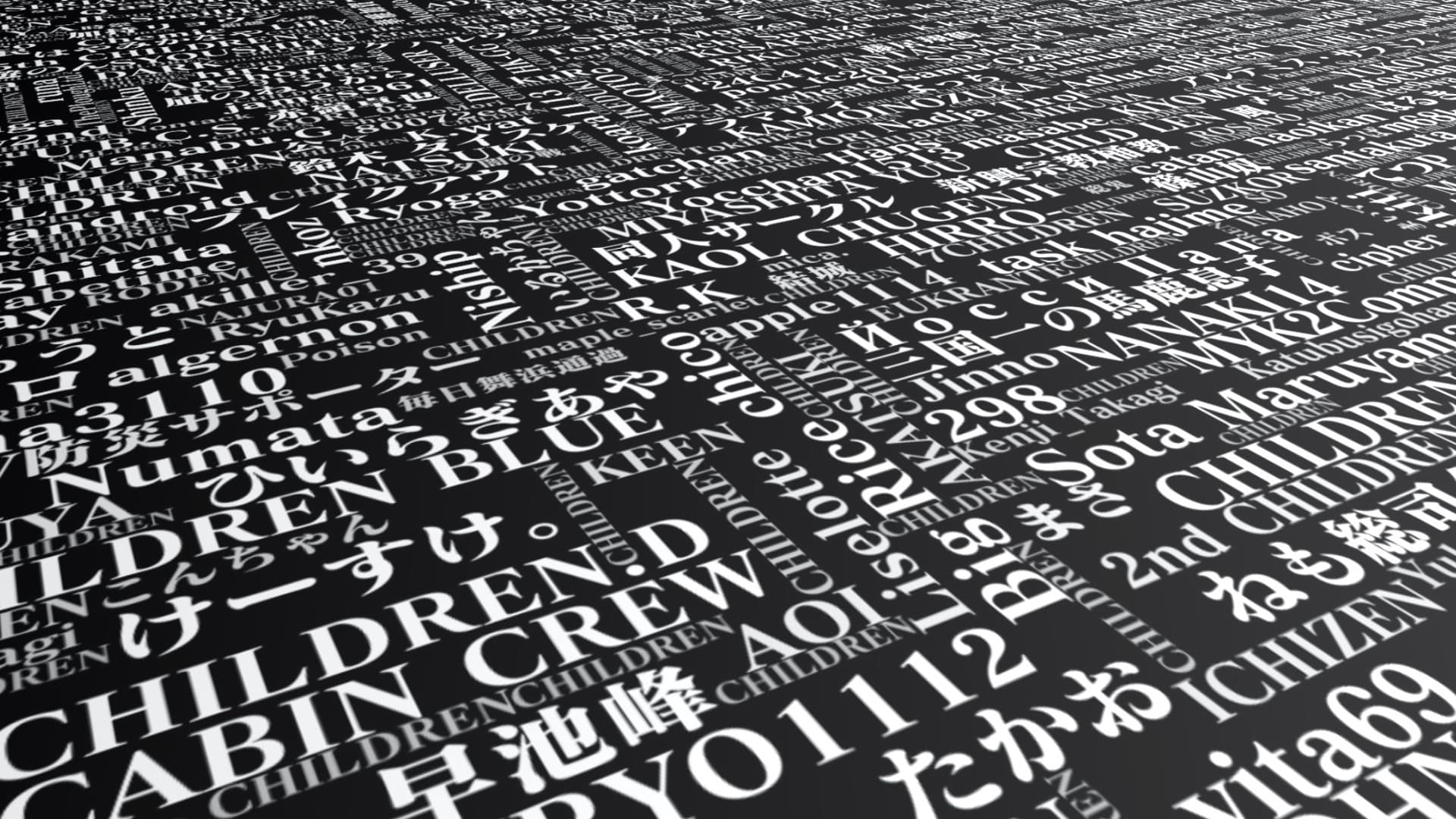
Gehirn Co., Ltd. has adopted our "Matisse EB" for the content for supporter members in the "Special Agency NERV Disaster Prevention App," and Gehirn has created Packaging design for Horika Foods Co., Ltd.'s "Disaster Prevention Rations Designated by the Special Agency NERV," using our "Matisse EB," "UDKakugo_Large DB," "Universal Design Kakugo Condensed 80 M," and "UD Kakugo R."
This time, we conducted a joint online interview with Gehirn Co., Ltd. CEO Ishimori, Executive Director Nukatani, Sakuragi from the Technology Development Department Production Division, who is in charge of all the company's creative work, including the app and Packaging design for disaster prevention rations, and Iguchi from the Sales Department of HORIKA FOODS Co., Ltd., who was involved in planning the disaster prevention rations, to hear about the background to the development.
Proper use of typefaces in the real world and the anime world
--First of all, I would like to ask Mr. Gehirn. Please tell us about the development process of the "Special Agency NERV Disaster Prevention App", which is highly supported as a disaster prevention app.
Ishimori:
There was an opinion within the company that it would be nice if the information on the Twitter account @UN_NERV, which had been in operation since the Great East Japan Earthquake of 3.11, could be further subdivided and optimized, but we are a disaster prevention app. Other companies have already provided various apps and services.
There was also a conflict as to whether there was a reason to enter the market now, but when I was invited to the year-end party of Eva officials at the end of 2018, when I talked about application development, I said, "You can use the name of NERV." I got permission. I thought that I couldn't put out half-finished products because I carried the name of NERV on my back, so I started full-scale development.
--What made you decide to introduce Matisse EB for the new content for supporter members?
Ishimori: We operate our Twitter account in reference to the organization called "NERV," a special agency that appears in the anime series "Evangelion," so we have used the technique of directly reflecting the worldview of Evangelion in our content many times before.
However, with the "NERV Special Agency Disaster Prevention App," we refrained from using "Matisse EB" because if we had faithfully reproduced the worldview of Evangelion, the disaster prevention information would have been difficult to read.
On the other hand, many of our Supporter Members are Evangelion fans and use the app, so we wanted to show our gratitude to our users on the Supporters Club credit board, and so we decided to use the Matisse EB logo with great anticipation.
--Thank you. I was overwhelmed by how the world of Evangelion was expressed! I'm very happy that you made full use of "Matisse EB". What was the reaction of members and within your company?
Ishimori: It seems like all the users had a lot of fun searching for their own names. There were comments like, "There's my name!" and "I can't seem to find it," and we even saw users searching for each other.
Mr. Hatsutani: Even before making it in-house, he said, "This will definitely be cool." When it was completed, it was as cool as I expected, and it was more artistic than I had imagined. Also, I think it was cool because many of you registered as members of the Supporters Club. At first, I was worried about what to do if we were about 10 people (laughs), but now more than 2,400 people have become supporter members, and we are able to put it out in that way.
Ishimori: I think the so-called fan club format, where people collect donations to support a project, is often used in the music industry. However, I don't think it's common to post the names of those who support a project. Moreover, the fact that the names are randomly arranged in the "Matisse EB" font, and that it has an artistic feel to it, is due to the background of Evangelion and the power of the font.
Balancing food safety and design
--Next, I would like to ask Mr. Iguchi of Holika Foods. "Disaster prevention food designated by the special agency NERV" was born with the concept of "distributed meals distributed by the special agency NERV to the citizens of Tokyo-3." Why did this collaboration come about?
Mr. Iguchi: When we exhibited at the disaster prevention forum held in Sendai City, Miyagi Prefecture, Mr. Ishimori and I got together. At that time, Mr. Ishimori was looking for a partner who could collaborate on disaster food. Originally, he was also a user of Rescue Foods, and he trusted the quality, so the project went on steadily.
--Did you have any instructions or requests such as a Packaging
Mr. Iguchi: We did not have any particular instructions or requests, and we left it to us. However, from the time when the design was completed, I checked it in terms of quality control, such as giving advice on notations that must be legally complied with.
Also, Mr. Ishimori is thinking about activities that will pass on art to the next generation.